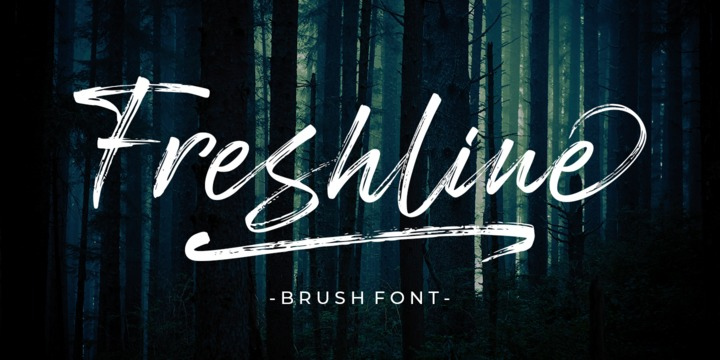
Freshline Font
Freshline Font is perfect for organic food branding, fresh produce packaging, healthy lifestyle blogs, juice bar signage, farm-to-table restaurants, wellness centers, natural skincare products, eco-friendly campaigns, sustainable fashion labels, green technology companies, outdoor adventure brands, and vibrant health communications.
What makes Freshline Font exciting is its invigorating freshness that captures the essence of natural vitality and healthy living through clean, energetic letterforms that radiate wellness and organic authenticity. This refreshing typeface embodies the spirit of natural purity and sustainable lifestyle choices, combining crisp clarity with organic warmth that resonates with audiences seeking health-conscious products and environmentally responsible brands. The font's vibrant character and clean aesthetic create immediate association with freshness while maintaining the readability essential for health and wellness communications. Its energizing personality makes it perfect for brands that want to communicate vitality, purity, and the transformative power of natural living and healthy lifestyle choices.
The Freshline Font family includes light, regular, and medium weights, featuring fresh alternates, organic ligatures, and natural design elements. The character set incorporates wellness symbols, vibrant numerals, and healthy punctuation marks that enhance the font's fresh character and provide designers with comprehensive natural typography solutions for vital brand expressions.